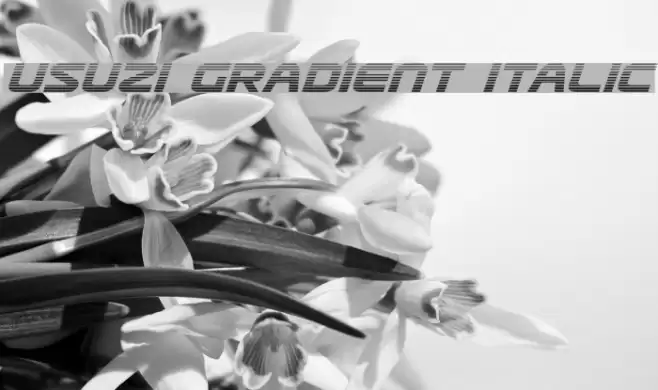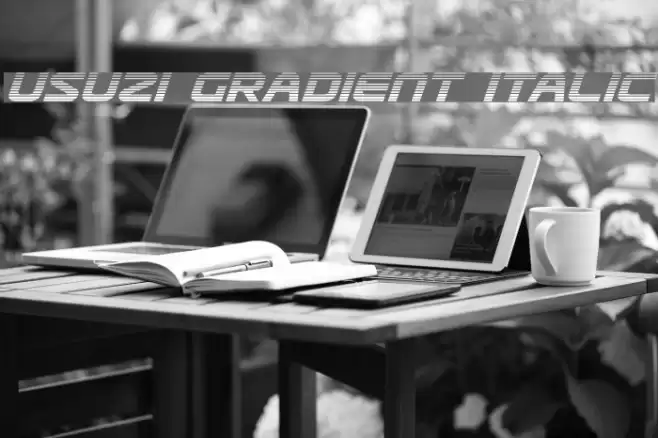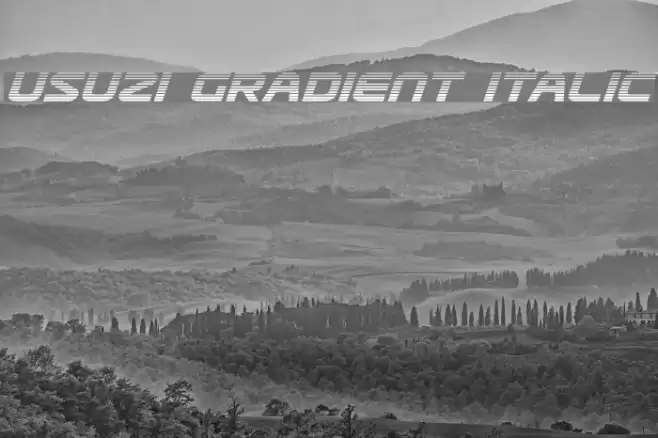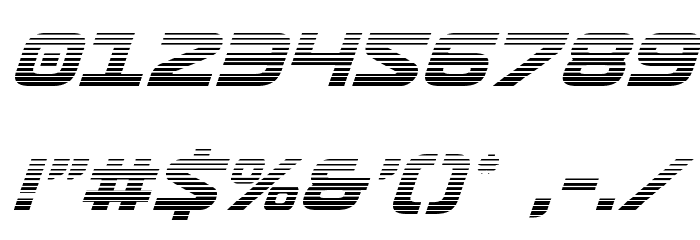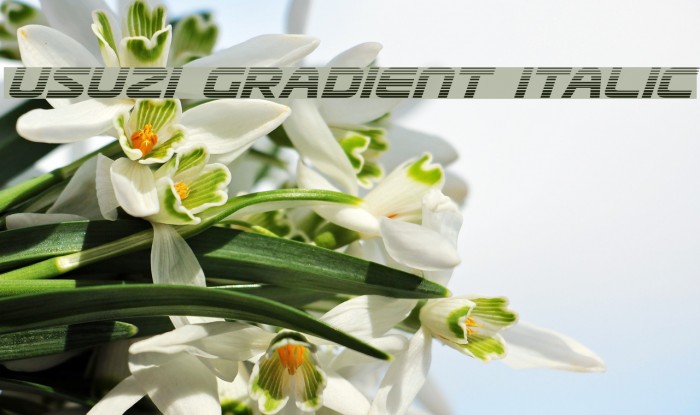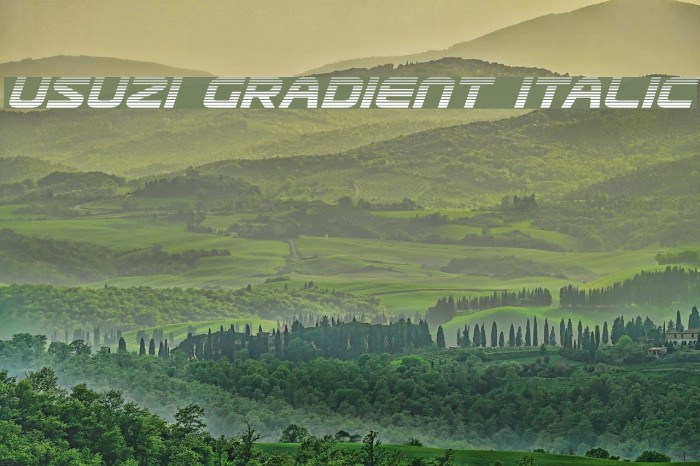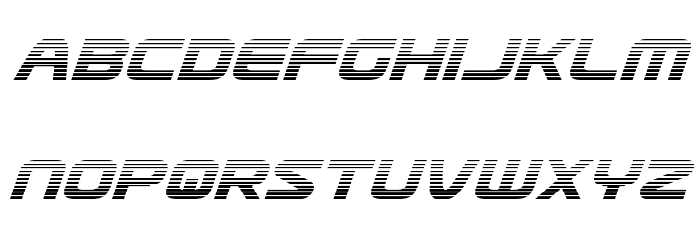
Usuzi Gradient Italic Font
Usuzi Gradient Italic Description
This font features a unique gradient effect with horizontal lines running through each character, creating a dynamic and modern appearance. The italicized style adds a sense of motion and speed, making it ideal for futuristic or tech-oriented designs. The uppercase and lowercase letters maintain a consistent slant, enhancing the cohesive look. The numerals and special characters are designed with the same gradient pattern, ensuring uniformity across all glyphs. The overall aesthetic is bold and eye-catching, perfect for making a statement.
A modern, italic font with a gradient line effect, ideal for dynamic designs from Uncategorized fonts.
- Proposed Projects: Suitable for tech branding, sports team logos, futuristic posters, and digital media.